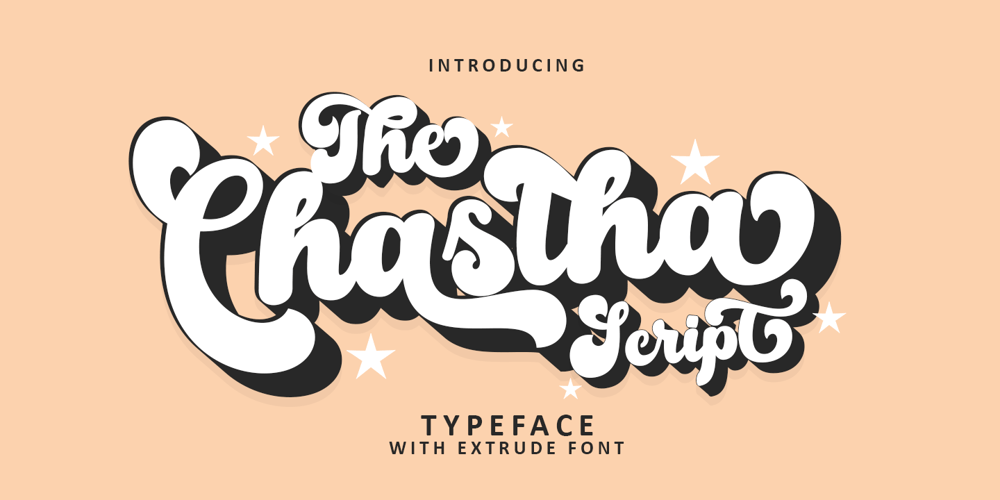
The Chastha Script
The Chastha Script font
The Chastha Script Font Family was designed by Zaki Muhammad and published by madjack.font. The Chastha Script contains 2 styles and family package options. Chasta. script Chastha Script is a romantic typography. sans, an elegant & fun vintage script font. Can be used for various purposes such as logos, wedding invitations, t-shirts, letterhead, signage, news, posters, badges etc.Chastha Script features 521+ glyphs and extruded fonts, alternate characters, ligatures, strokes, and multiple language support.See all the glyphs here:http://s28.postimg.org/7osts7ezx/All_Glyphs.jpgTo enable the OpenType Stylistic alternative, you need a program that supports OpenType features such as Adobe Illustrator CS, Adobe Indesign & CorelDraw X6-X7.How to get alternate glyph access from open type fonts:http://youtu.be/iptSFA7feQ0There are additional ways to access alternatives/swashes, using the Character Map (Windows), Nexus Font (Windows), Font Book (Mac) or a software program such as PopChar (for Windows and Mac).How to access all alternative characters, using the Windows Character Map with Photoshop:https://www.youtube.com/watch?v=Go9vacoYmBwNeed help? If you need help or advice, please contact me by email.Thank You!